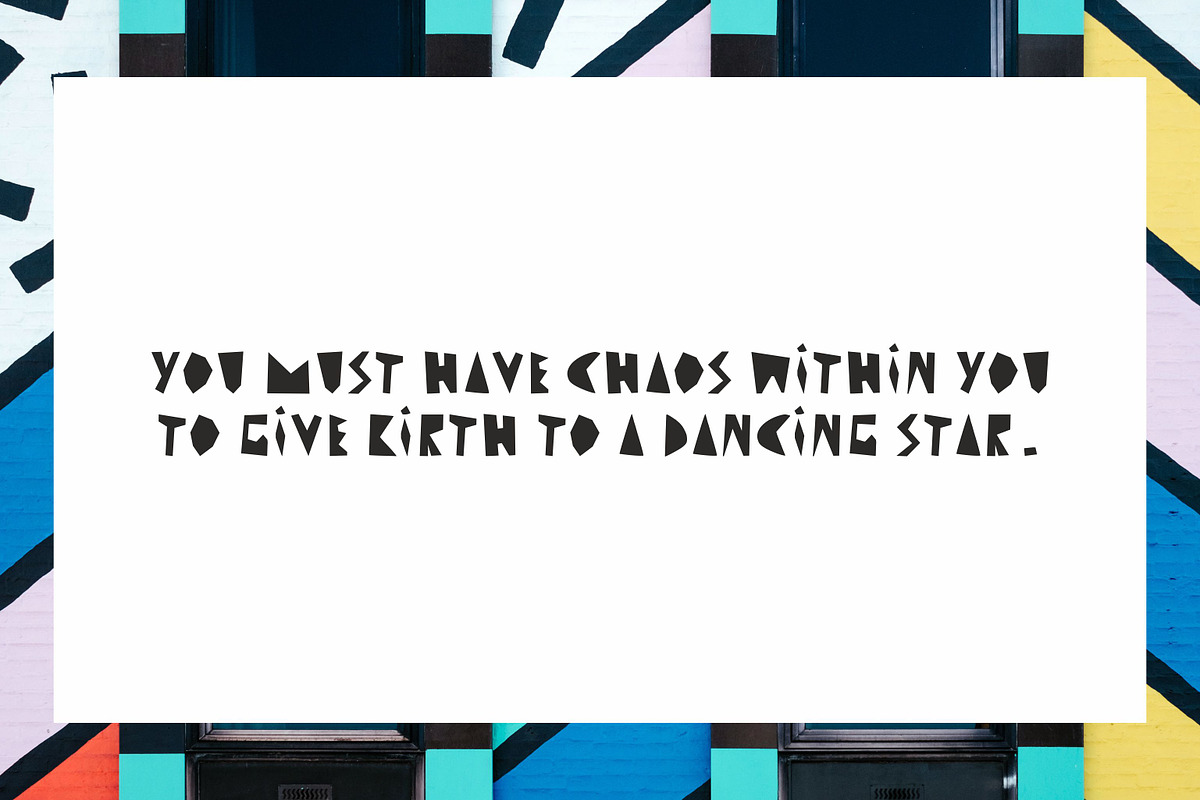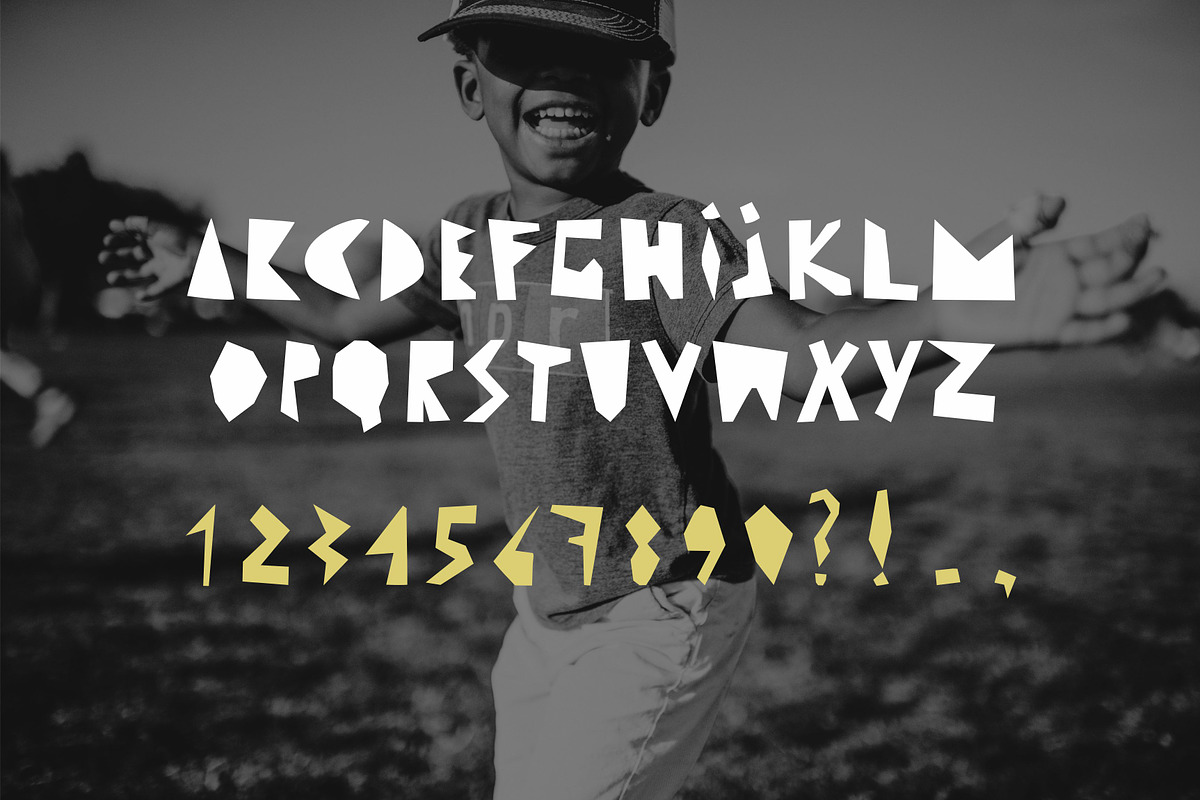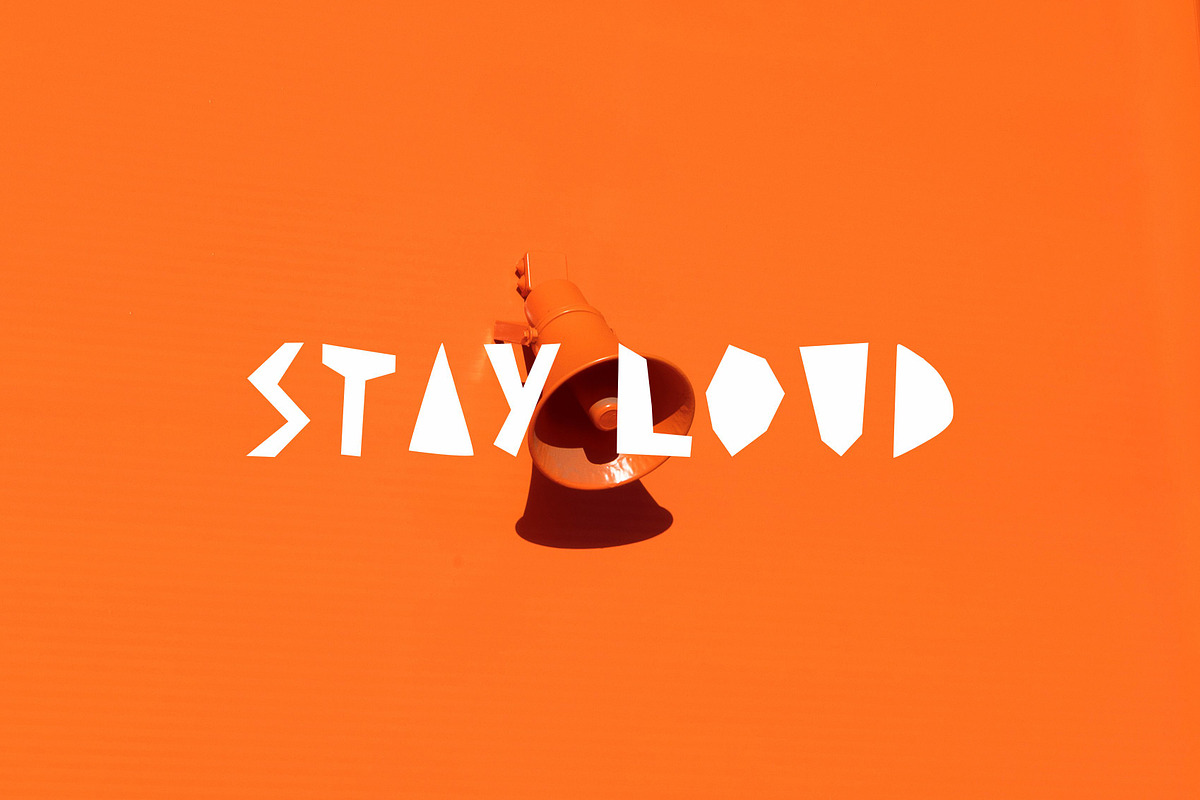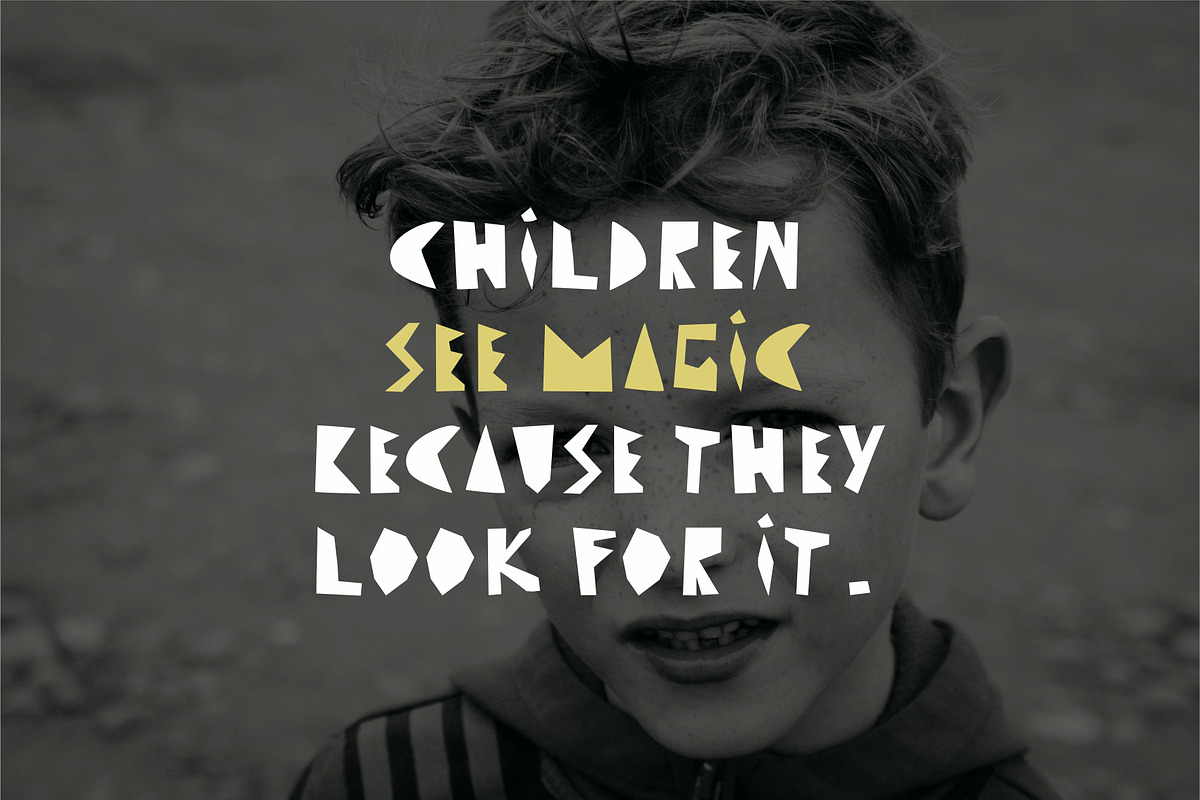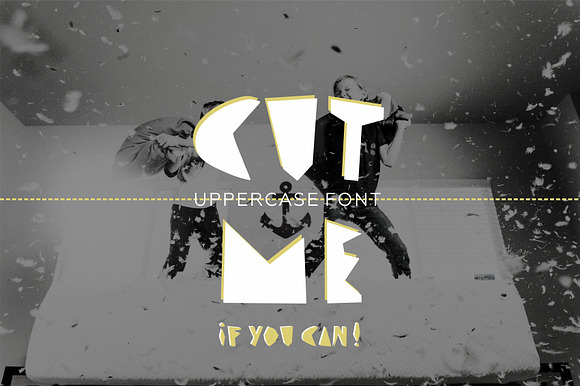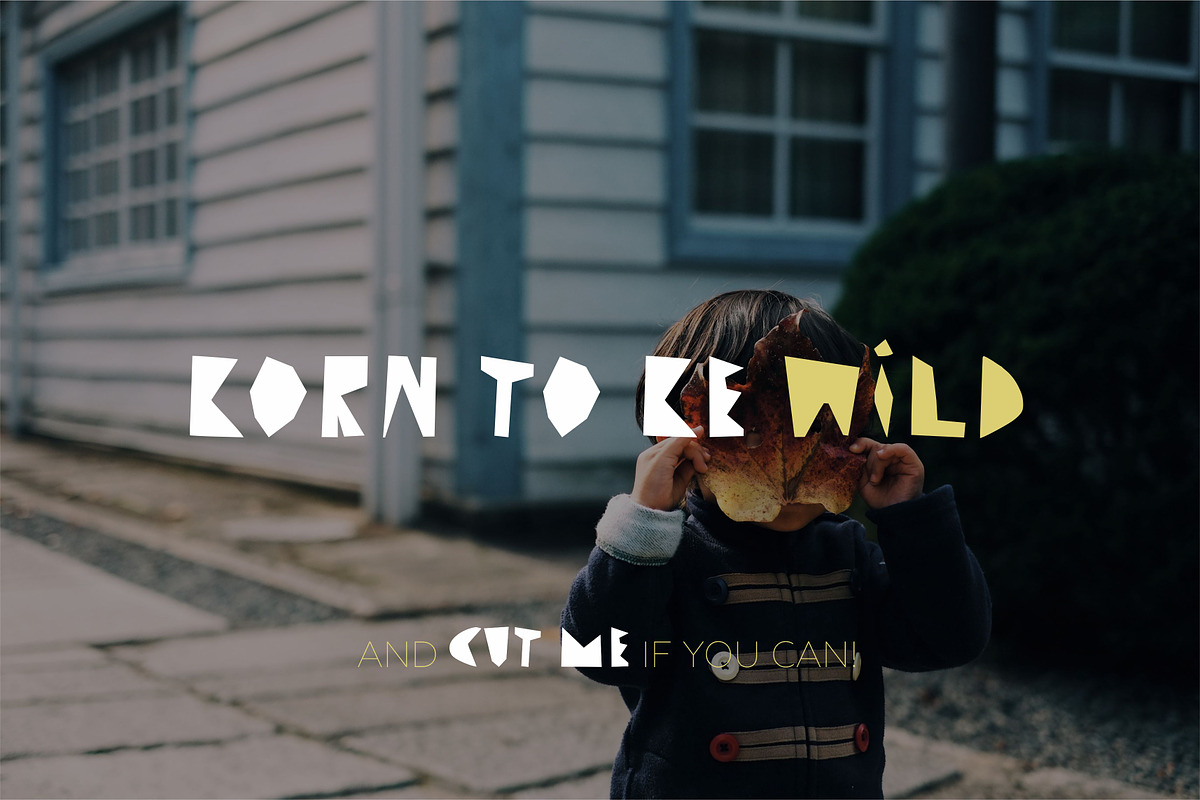
CUT ME if you can. Uppercase font.
CUT ME if you can! It's uppercase font. All letters are made by hand. You must have fun with this font. Ideal for print design, product packgaging, for all what you want! Because, cut me if you can!
CUT ME if you can. Uppercase font. by lisakalev fits naturally into Branding, posters, packaging, typography.